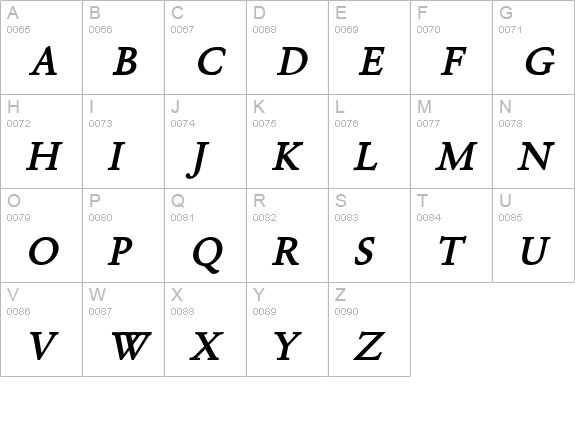
Garrick Bold Italic is a strong, high-contrast, italic variant in the Garrick typeface family \xE2\x80\x94 well suited to headlines, attention-grabbing titles, and strong calls-to-action.
Introducing Garrick Bold Italic font - a sleek and modern typeface that exudes confidence and sophistication. This font is perfect for making a bold statement in your designs, whether it's for branding, advertising, or any other creative project. The bold italic style adds a touch of flair and elegance, making your text stand out and command attention. What's even better is that Garrick Bold Italic font is available for free download at FontsMarket.com. Yes, you read that right - you can get your hands on this stunning font without spending a dime. So why wait? Elevate your designs with the striking beauty of Garrick Bold Italic font today!